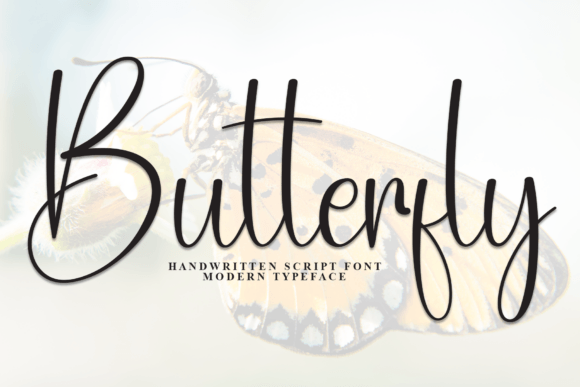
The Perfect Brushstroke: Introducing Butterfly Font
Do you ever find yourself doodling in the margins of your notebook, trying to capture the perfect handwritten feel? It’s a moment many creatives can relate to – the pursuit of a beautiful, imperfect line that adds character to any design. For designers seeking to bring that same warmth and personality to their work, we have some exciting news: Butterfly Font is here to take your designs to the next level.
This charming handwritten font is designed to add a touch of whimsy and friendliness to any project. With its natural, unique style, the possibilities are endless – from invitations and greeting cards to branding and packaging. The value of Butterfly Font lies in its ability to connect with your audience on a personal level, making it a valuable addition to any designer’s toolkit.
Key Features of Butterfly Font
- Unique Characteristics: Butterfly Font features a distinctive, hand-drawn aesthetic with intricate details and flourishes, giving it a whimsical and elegant feel.
Designer Review: Butterfly Font
At first glance, the Butterfly Font appears to be a delicate, whimsical typeface, perfect for adding a touch of elegance to any design project. ✨ The font’s unique, hand-drawn feel makes it stand out from more traditional sans-serif fonts, and its flowing lines evoke the gentle movement of, well, butterflies.
Here are some of the things that work well for this font:
- ✨ Its versatility: Butterfly Font can be used for a wide range of projects, from wedding invitations to children’s book illustrations.
- ✨ Its legibility: Despite its unique feel, the font is surprisingly easy to read, even at small sizes.
- ✨ Its customization options: The font comes with a range of ligatures, swashes, and other decorative elements that can be used to add extra flair to your designs.
- ⚠️ The font may not be suitable for projects that require a more formal or corporate tone.
- ⚠️ Some users may find the font’s irregularities to be distracting or difficult to work with.
- ⚠️ The font’s unique feel can also make it difficult to pair with other fonts, so you may need to spend some time experimenting with different combinations to find the right look.
Overall, I would say that Butterfly Font is a great choice for designers who want to add a touch of whimsy and elegance to their projects. While it may not be suitable for every project, it’s a versatile and beautiful font that can help you create truly unique and eye-catching designs.
Practical Application Guide: Butterfly Font
Tips for Getting the Most Out of the Butterfly Font
Use the Butterfly Font to add a touch of whimsy and elegance to your designs.
Pair the font with bright colors and bold graphics to create a striking visual effect.
Experiment with different font sizes and styles to add depth and interest to your design.
The Butterfly Font is perfect for:
Children’s book illustrations
Food and beverage branding
Stationery and greeting cards
Alternatives to Butterfly Font
Great Vibes is a modern, elegant script font. It is ideal for use in wedding invitations, greeting cards, and other formal events where a touch of sophistication is desired.